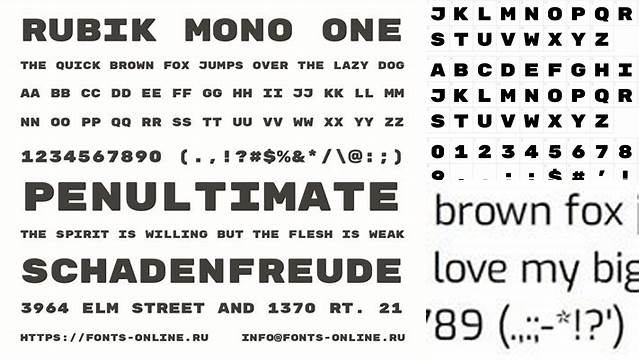
Google Fonts Guide: Rubik, Mono & One
Google Fonts: Rubik, Mono, and One - A Font Specimen Guide
Hey guys, let's dive into the awesome world of Google Fonts! Today, we're going to explore three fantastic fonts: Rubik, Mono, and One. We'll take a look at what makes each of these fonts special, where you might use them, and how to make them shine in your designs. It's like a font adventure, and you're all invited! Let's get started, shall we?
Discovering the Versatile Rubik Font
Rubik, the first font on our list, is a real workhorse. It's a sans-serif font that's known for its friendly and approachable vibe. It's incredibly versatile, which means you can use it for a bunch of different projects. Seriously, from website headers to body text, Rubik is a solid choice. Its clean lines and open letterforms make it super readable, even at smaller sizes. You can easily find it on Google Fonts, ready to download and implement in your projects.
So, why is Rubik so popular? Well, for starters, it's incredibly readable. The designers paid close attention to the letter shapes, making sure that each character is easily distinguishable from the others. This is super important when you're dealing with body text or any other content where readability is key. It also has a modern aesthetic, making it perfect for contemporary designs. And the best part? Rubik comes in a variety of weights and styles, so you can tailor it to your specific needs. Need a bold headline? Rubik has you covered. Want a lighter weight for body text? Yep, Rubik can do that too.
Let's talk about some practical applications. Rubik is a fantastic choice for websites. You can use it for everything from navigation menus to the main content of your blog posts. Its clean and simple design won't distract from the content, but it will still give your website a professional look. It's also a great option for print materials like brochures, flyers, and posters. Rubik's readability makes it ideal for these types of documents, where clarity is paramount. I've seen Rubik used in branding, logos, and even mobile apps. It's a versatile font that adapts well to different platforms and formats.
I've personally used Rubik in several projects, and I've always been impressed with its performance. It's a reliable font that's easy to work with, and it always looks great. If you're looking for a font that's both functional and stylish, Rubik is definitely worth considering. Give it a try, and see what you think! You might just find your new favorite font.
Unleashing the Power of Mono Font
Alright, let's shift gears and check out Mono. Now, this is where things get interesting! Mono, short for monospace, is a font where every character takes up the same amount of horizontal space. This might sound a little weird, but trust me, it's got a purpose. Think of old typewriters or the text editors used by coders. That's the vibe we're going for here.
Why would you use a monospace font like Mono? Well, there are a few key reasons. First, they're perfect for displaying code. The consistent spacing makes it easy to align characters and see how your code is structured. They're also great for technical documentation, where precise formatting is crucial. Mono fonts can also be used for creating a retro or vintage feel. If you're designing a website or a project that has a throwback aesthetic, Mono can be a great choice. And hey, sometimes you just want to be different, and Mono fonts definitely stand out!
Let's explore some specific applications. If you're a web developer or a coder, you're probably already familiar with monospace fonts. They're essential for writing and debugging code. The consistent spacing helps you spot errors and understand the structure of your code. Outside of coding, Mono can be used for creating unique and eye-catching designs. Think about using it for headlines, quotes, or even short paragraphs. The unusual look of a monospace font can make your design more interesting and memorable. And for those of you who love the retro aesthetic, Mono is your best friend.
When it comes to choosing a specific Mono font, there are a few things to consider. Some fonts are more readable than others. Some have a more modern feel, while others have a vintage vibe. Experiment with different options until you find the one that suits your needs. You can also combine Mono with other fonts to create interesting visual combinations. For example, you could use a monospace font for headlines and a sans-serif font for body text. Just make sure that your design is still readable and easy to understand. Mono is a powerful tool, and with a little creativity, you can use it to create some awesome designs.
The Bold and Striking One Font
Finally, let's talk about One. This font is all about making a statement! It's a condensed, sans-serif font with a bold and impactful presence. If you want your text to grab attention, One is your go-to choice. It's perfect for headlines, titles, and any other text where you want to make a big impression. Just imagine it: BIG, BOLD, and UNMISSABLE.
One is designed to be seen. It's perfect for headlines, titles, and any text where you want to make a statement. Its condensed nature makes it ideal for fitting longer titles into limited spaces. Think about movie posters, website banners, or any place where you want to convey a message quickly and effectively. One has a modern and strong feel, making it ideal for contemporary designs. Its clean lines and bold appearance make it a great choice for branding and marketing materials. One will make your designs pop.
Conclusion: Finding the Right Font for You
So, there you have it! We've covered three amazing fonts: Rubik, Mono, and One. Each of these fonts has its own unique characteristics and is suitable for different types of projects. Remember, the best font for your project depends on your specific needs and goals. Consider the message you want to convey, the overall design of your project, and the readability of the font. With a little experimentation, you'll be able to find the perfect font for your project. And don't be afraid to mix and match fonts to create interesting and unique designs. Happy designing, guys! Keep experimenting and enjoy the process!